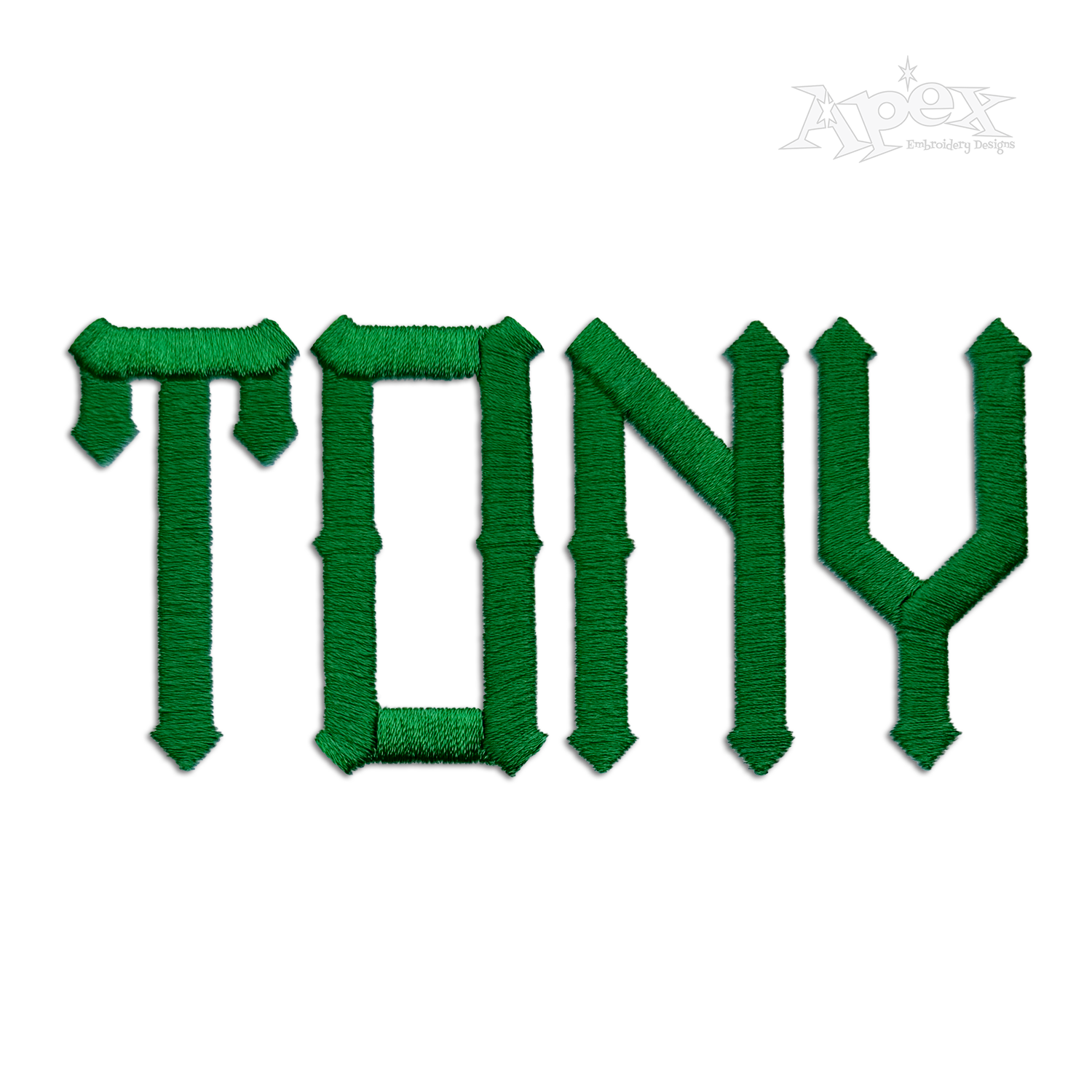
Ninja Arrow Embroidery Font
Born from the quiet focus and swift precision of traditional archery and martial agility, the Ninja Arrow Embroidery Font channels pure kinetic motion into clean, needle-driven stitchwork. Each glyph is crafted with a bold, aerodynamic silhouette, accented by striking directional arrowheads and feathered fletching motifs that slice through textile surfaces with undeniable confidence. As digitizers, our intention was to marry the fearless energy of modern athletic typography with meticulous satin-stitch craftsmanship, creating a typeface that catches the ambient light and gives personalized monogramming a sharp, spirited edge.
Ninja Arrow Embroidery Font Craft & Letterform Details
The true beauty of the Ninja Arrow Embroidery Font lies in its meticulous digitizing architecture. Every stroke is deliberately path-planned to preserve needle velocity and minimize unnecessary jump stitches. To counter the natural push-and-pull distortion inherent in heavy satin columns, each arrow barb and angular terminal is reinforced with calibrated underlay and micro-tuned stitch compensation, ensuring that pointed corners remain needle-sharp instead of rounding off during the stitchout.
The satin stitch directionality flows smoothly through the sweeping verticals and crossbars, creating a dynamic interplay of thread sheen that changes as the fabric catches light. The result is a resilient, professional embroidery alphabet that delivers flawless density, crisp edge definition, and unmistakable kinetic drama on every machine stitch.